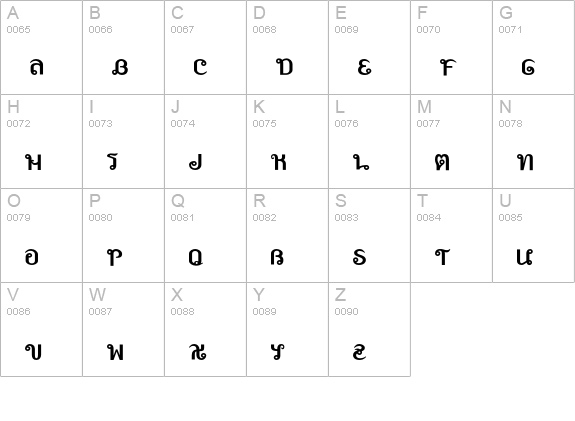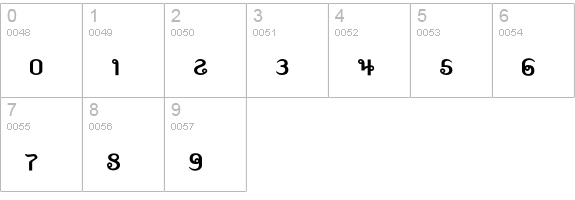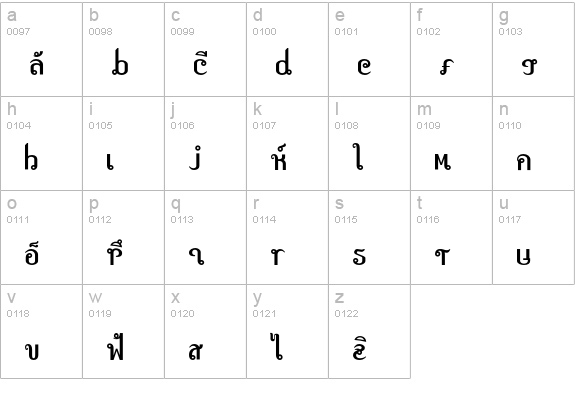
Exotica-Jasumin Font Details
Exotica-Jasumin font is a captivating and elegant typeface that exudes a sense of exotic beauty and sophistication. With its intricate details and unique styling, this font is sure to make any design project stand out. The delicate curves and ornate flourishes give Exotica-Jasumin a luxurious and refined appearance that is perfect for adding a touch of glamour to your creative projects. What's even better is that Exotica-Jasumin font is available for free download at FontsMarket.com. This means you can easily access this stunning font and incorporate it into your designs without any cost. Whether you're working on a branding project, wedding invitation, or any other design endeavor, Exotica-Jasumin font will bring a touch of exotic charm and sophistication to your work. Download it now and let your creativity shine with this exquisite typeface.